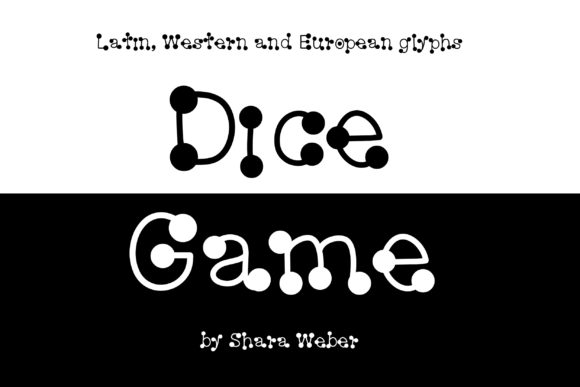
Dice Game Font: A Playful and Unique Decorative Font
The world of typography is vast and diverse, with numerous fonts designed to cater to different needs and tastes. Among these, the Dice Game Font stands out as a playful and unique decorative font that can add a touch of whimsy to your creative projects. In this article, we’ll explore the features and benefits of the Dice Game Font, and how it can help bring your ideas to life.
What is Dice Game Font?
Dice Game Font is a decorative font designed to resemble the numbers and symbols found on dice. It features a simple and quirky style that is both eye-catching and fun. The font is perfect for creative projects that require a playful and lighthearted touch, such as children’s books, games, and party invitations.
Key Features of Dice Game Font
- Unique and Quirky Style: The Dice Game Font boasts a distinctive style that sets it apart from other fonts. Its quirky design makes it perfect for projects that require a playful touch.
- Simple and Easy to Read: Despite its playful design, the Dice Game Font is simple and easy to read, making it suitable for a wide range of applications.
- Highly Versatile: The font can be used for various creative projects, including titles, headings, and body text.
Benefits of Using Dice Game Font
The Dice Game Font offers several benefits that make it an excellent choice for creative projects. Some of these benefits include:
- Adds a Touch of Whimsy: The font’s playful design adds a touch of whimsy to your projects, making them more engaging and fun.
- Enhances Creativity: The Dice Game Font’s unique style can inspire creativity and help you think outside the box.
- Perfect for Children’s Projects: The font’s playful design makes it perfect for children’s books, games, and other projects.
Tips and Tricks for Using Dice Game Font
Here are some tips and tricks to help you get the most out of the Dice Game Font:
- Use it for Headings and Titles: The Dice Game Font is perfect for headings and titles, where its playful design can make a big impact.
- Combine it with Other Fonts: Combine the Dice Game Font with other fonts to create a unique and visually appealing design.
- Experiment with Different Colors: Experiment with different colors to add an extra layer of creativity to your project.
- Use it for Children’s Projects: The Dice Game Font is perfect for children’s projects, such as books, games, and party invitations.
In conclusion, the Dice Game Font is a playful and unique decorative font that can add a touch of whimsy to your creative projects. Its simple and quirky style makes it perfect for a wide range of applications, from children’s books to party invitations. With its highly versatile design and compatibility with multiple platforms, the Dice Game Font is an excellent choice for anyone looking to add some fun and creativity to their projects.
- What is the Dice Game Font?: The Dice Game Font is a decorative font designed to resemble the numbers and symbols found on dice.